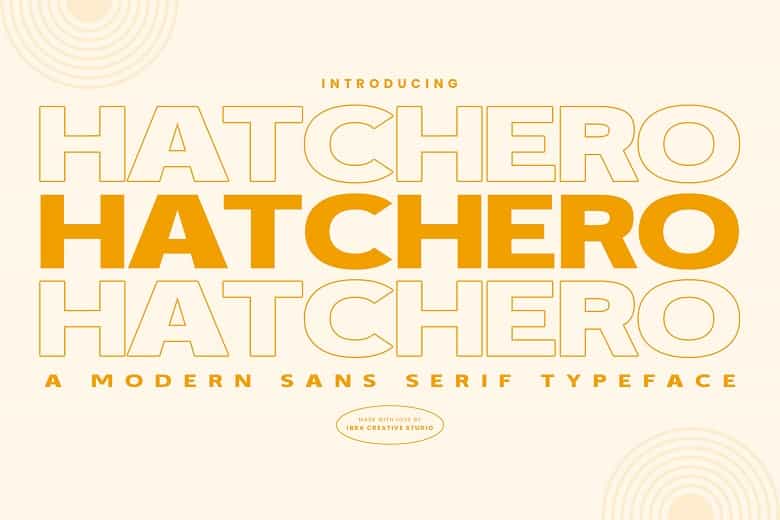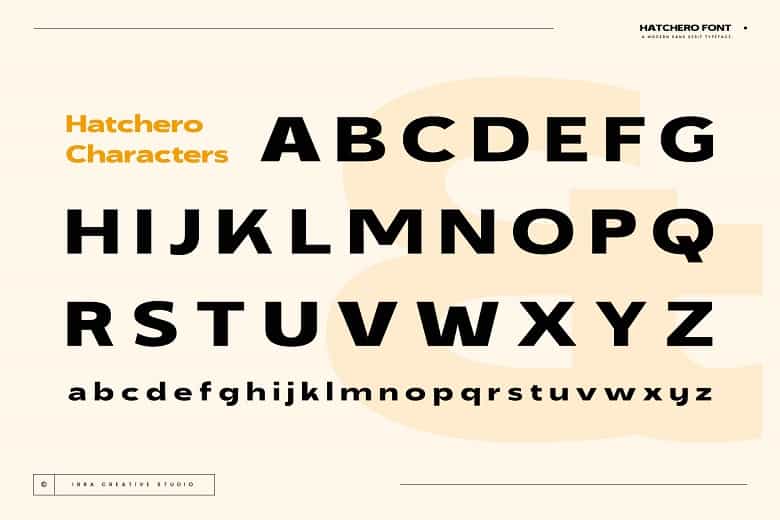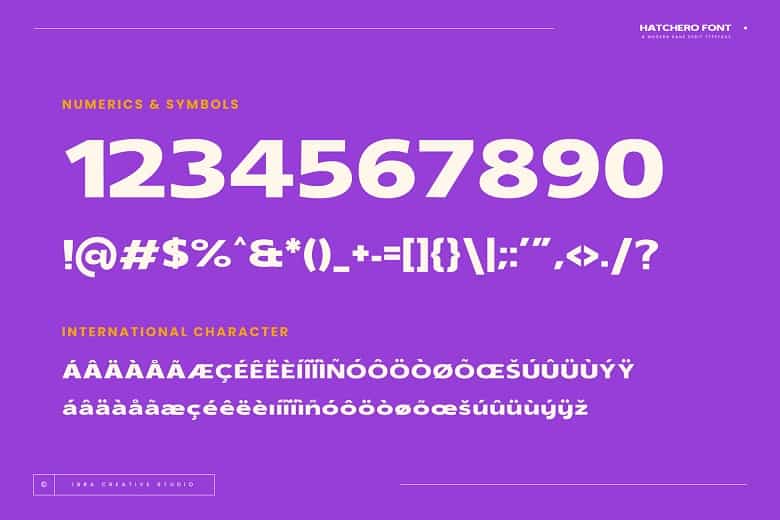
Hatchero is a modern sans-serif font that does not only personify today’s generation but also flexibility in the field of typography. With a chic and modern design characterized by a clean look and symmetrical dimensions, this font is suitable for most design purposes. Its applications range from digital interfaces, editorial layouts, and corporate branding,